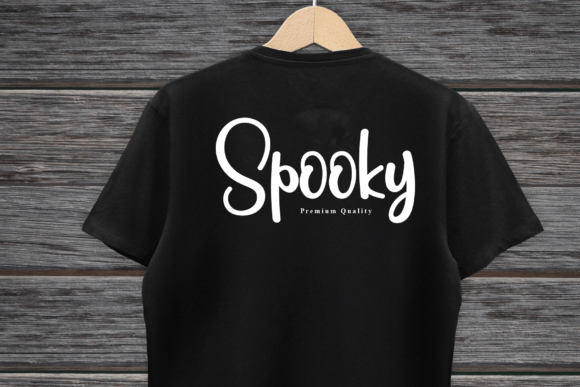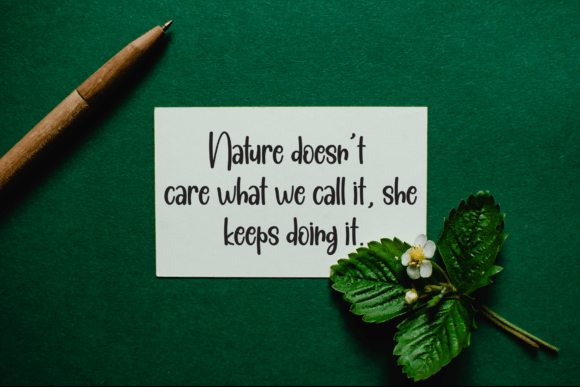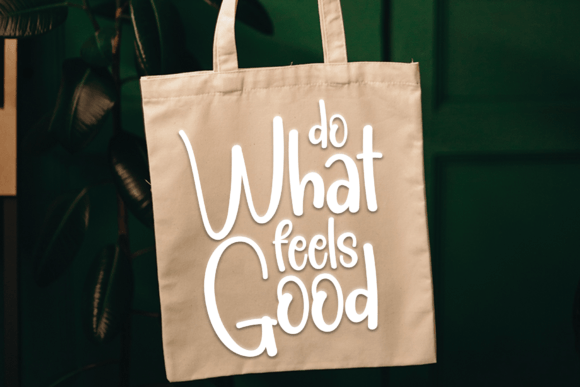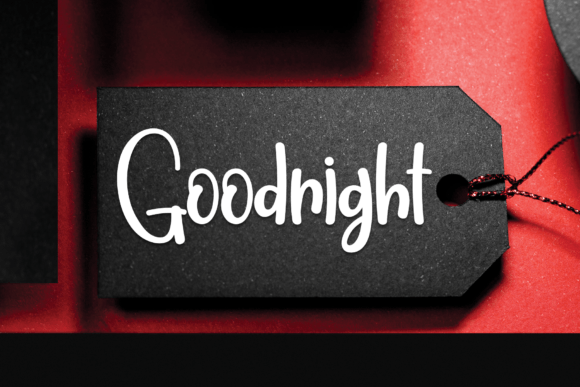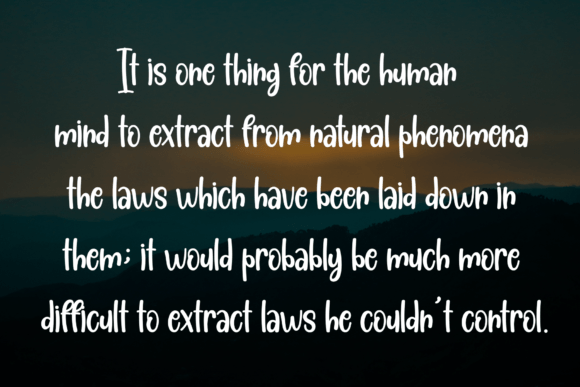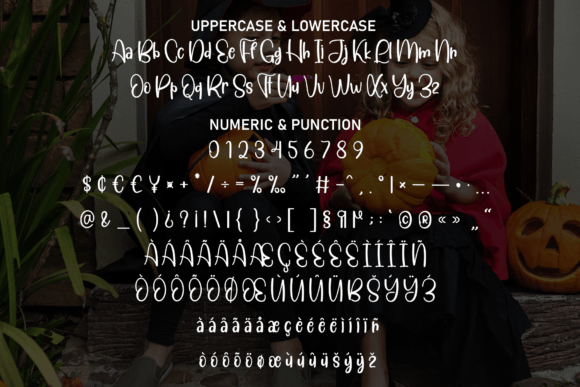
Introducing Halloween School Font: The Perfect Casual Handwritten Style for Your Designs
Are you looking for a font that can add a relaxed and friendly vibe to your designs? Look no further than the Halloween School Font. This casual handwritten font is perfect for designers and crafters who want to bring a natural and effortless charm to their projects. In this article, we’ll explore the features and benefits of Halloween School Font, and how it can elevate your designs to the next level.
What is Halloween School Font?
Halloween School Font is a casual handwritten font that captures the essence of a relaxed and friendly vibe. Its natural, flowing strokes give it a unique and charming personality that is perfect for a variety of design projects. Whether you’re working on personal projects, social media graphics, or invitations, this font is sure to bring a touch of warmth and authenticity to your designs.
Key Features of Halloween School Font
- Casual Handwritten Style: Halloween School Font has a casual and handwritten style that gives it a relaxed and friendly vibe.
- Natural Flowing Strokes: The font’s natural flowing strokes add a touch of elegance and sophistication to any design.
- Effortless Charm: The font’s easygoing style adds warmth and authenticity to any design, making it perfect for personal projects and social media graphics.
- Versatile: Halloween School Font is versatile and can be used for a variety of design projects, including invitations, posters, and social media graphics.
Benefits of Using Halloween School Font
There are many benefits to using Halloween School Font in your designs. Here are a few:
- Adds a Personal Touch: The font’s casual handwritten style adds a personal touch to any design, making it perfect for personal projects and social media graphics.
- Easy to Read: The font is easy to read, making it perfect for designs that require a lot of text, such as invitations and posters.
- Unique and Charming: The font’s unique and charming personality sets it apart from other fonts, making it perfect for designers who want to add a touch of elegance to their designs.
In conclusion, Halloween School Font is a casual handwritten font that captures a relaxed and friendly vibe with its natural, flowing strokes. Ideal for personal projects, social media, and invitations, it brings an effortless, charming touch to any design. The font’s easygoing style adds warmth and authenticity, making it perfect for designers and crafters who want to add a touch of elegance to their designs. With its versatility, ease of use, and unique personality, Halloween School Font is sure to become a favorite among designers and crafters.